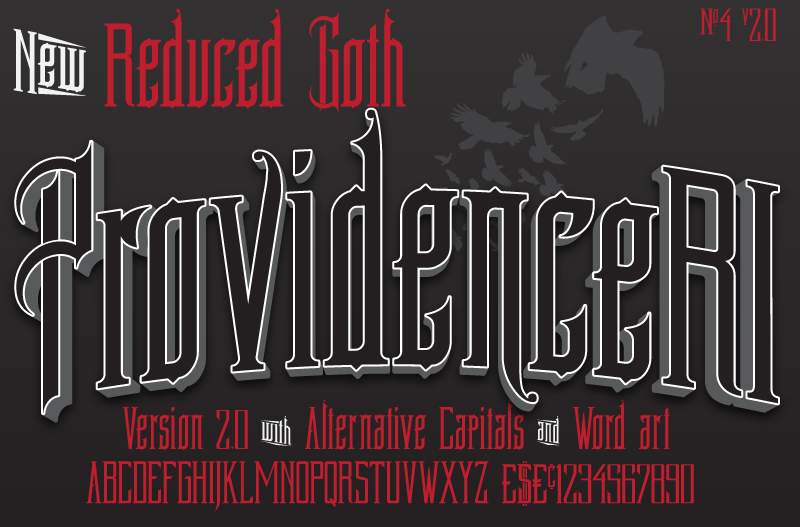
Font name: | Providence RI |
Author: | Pilaster Davy |
Note by Pilaster Davy | |
NEW version 2 featuring alternative serif capitals, word art and tweaked metrics. ProvidenceRI was spawned from the typography of a 1900 Sanborn Perris Map Co. Ltd. map cover for Providence, Rhode Island, USA and in part from Goth watching in Whitby, North Yorkshire, UK, during Goth Weekend, 2014 (It’s a thing. Google it!). The result is ProvidenceRI. Less Goth than the Sisters of Mercy, more Goth than Michael Bublé. Providence RI has limited language support (so you can type Bublé properly!), with a view to extending this at a later date and is served as is and 100% free. If you like the font, please feel free to show your appreciation by using the ‘Buy the author a Beer with Paypal button’ mislabelled ‘Donate to the Author’ and situated right below the download button on the right of this page. Should you have the good fortune to find a commercial use for ProvidenceRI, you can similarly earn good karma and share some of the love using the same method. However you use it, I’d love to see some examples of my goth/vintage child set free and in the wild. Links via the Dafont PM system would be greatly appreciated. Comments, suggestions & requests are most welcome. Thanks must be extended to the naughty mods and staff of Dafont for their patience, help, expertise and encouragement, without which this endeavour wouldn’t have been possible. Enjoy! |